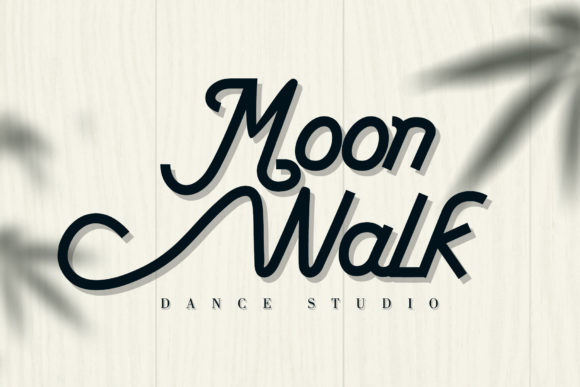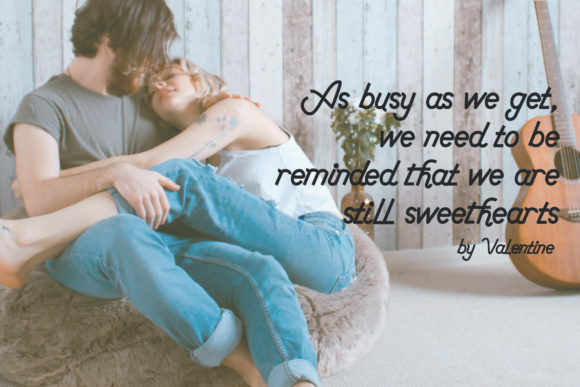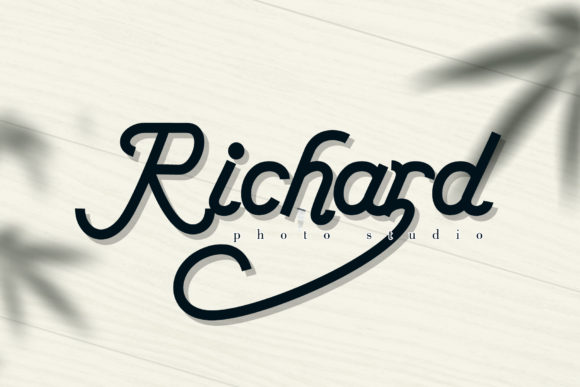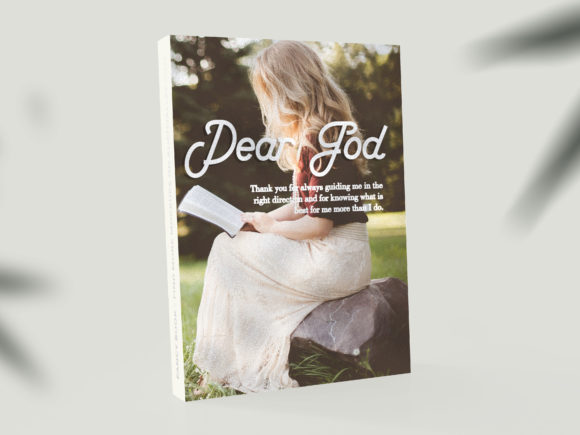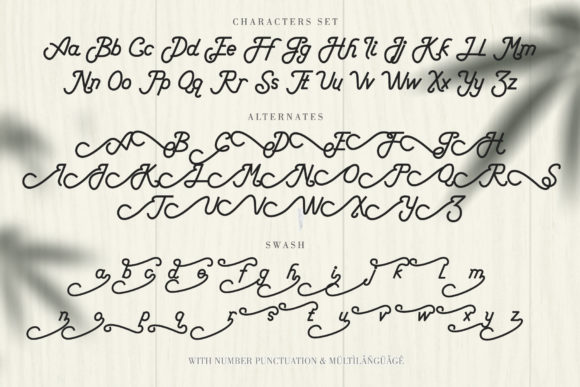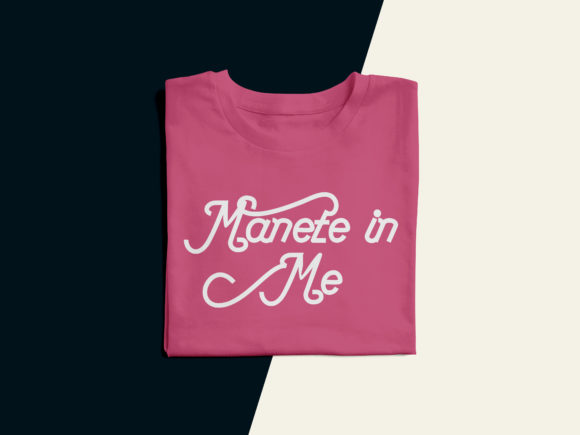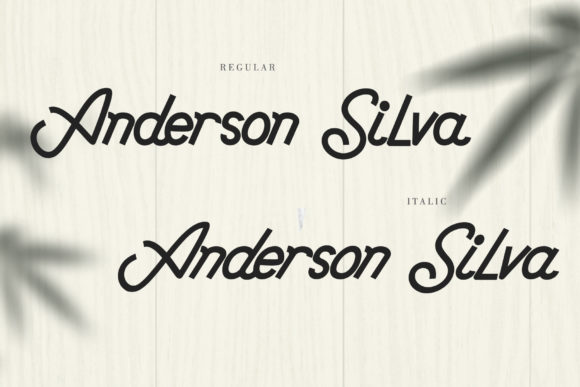
Anderson Silva Font
About Anderson Silva Font
Anderson Silva is a dynamic font that works especially well with autumn-themed designs. Its handwritten style adds a unique feel to your design!